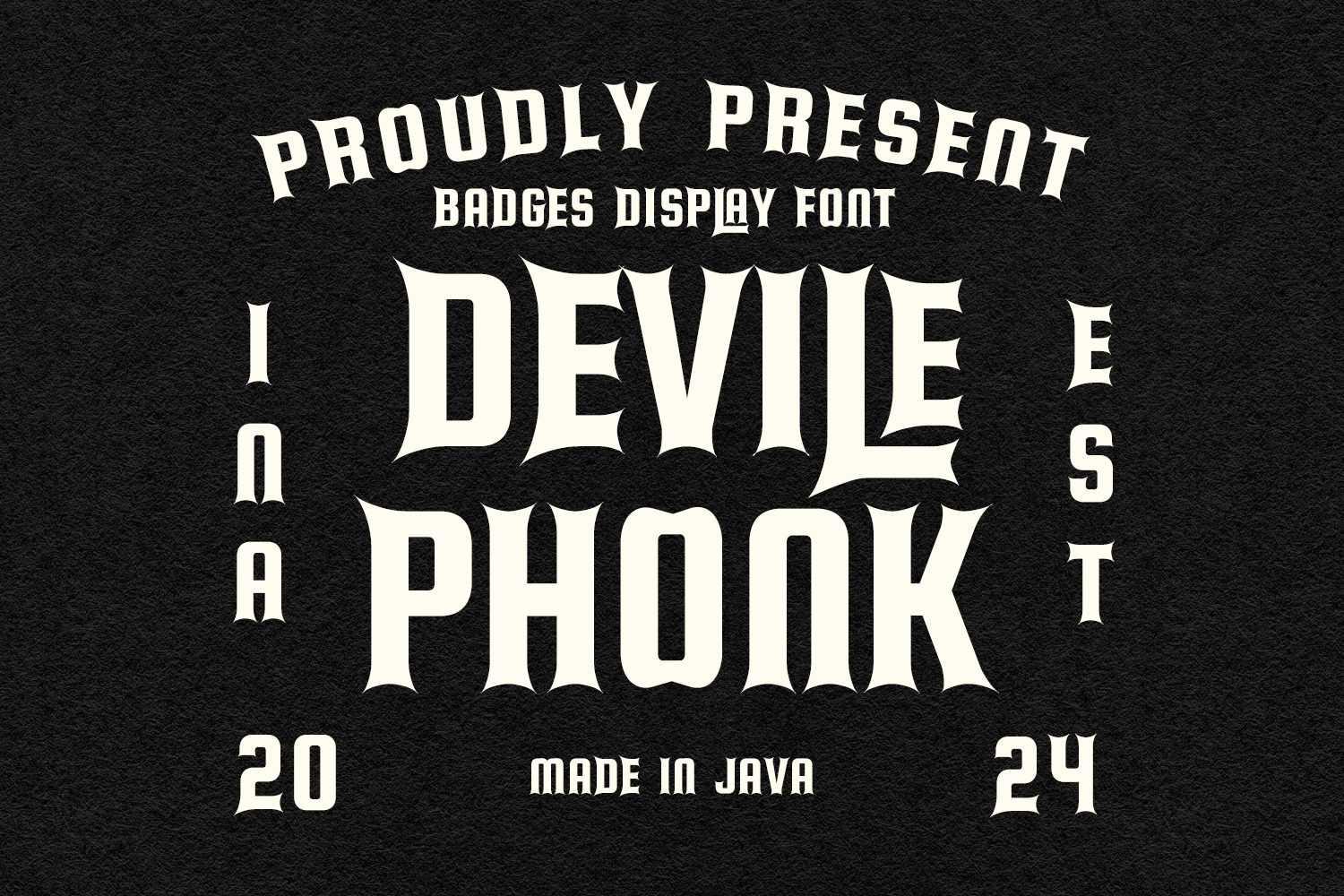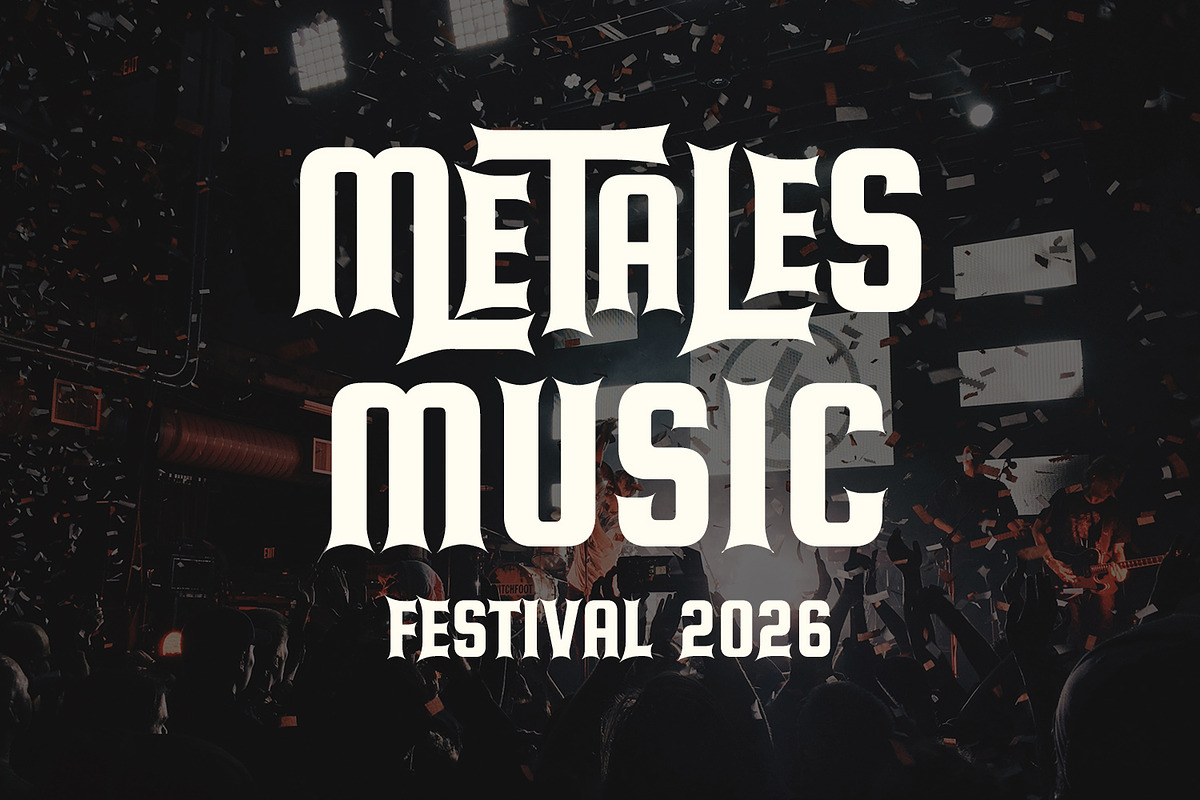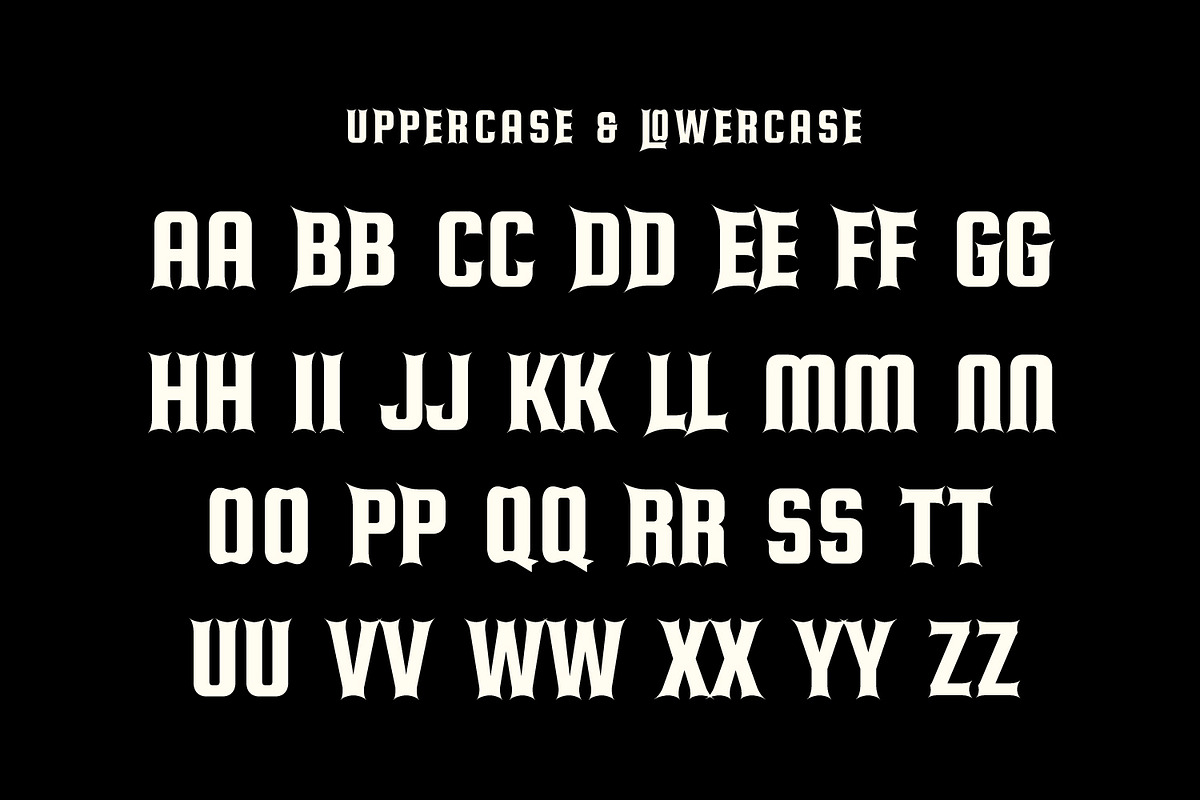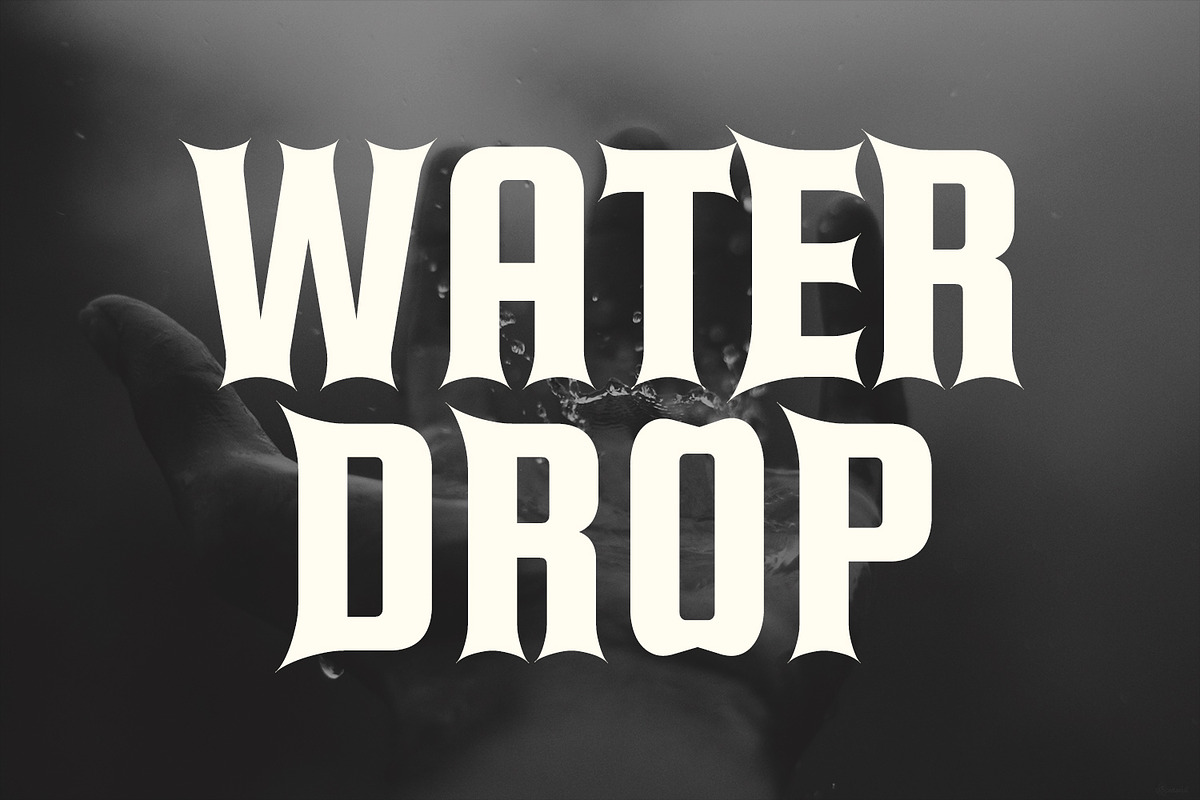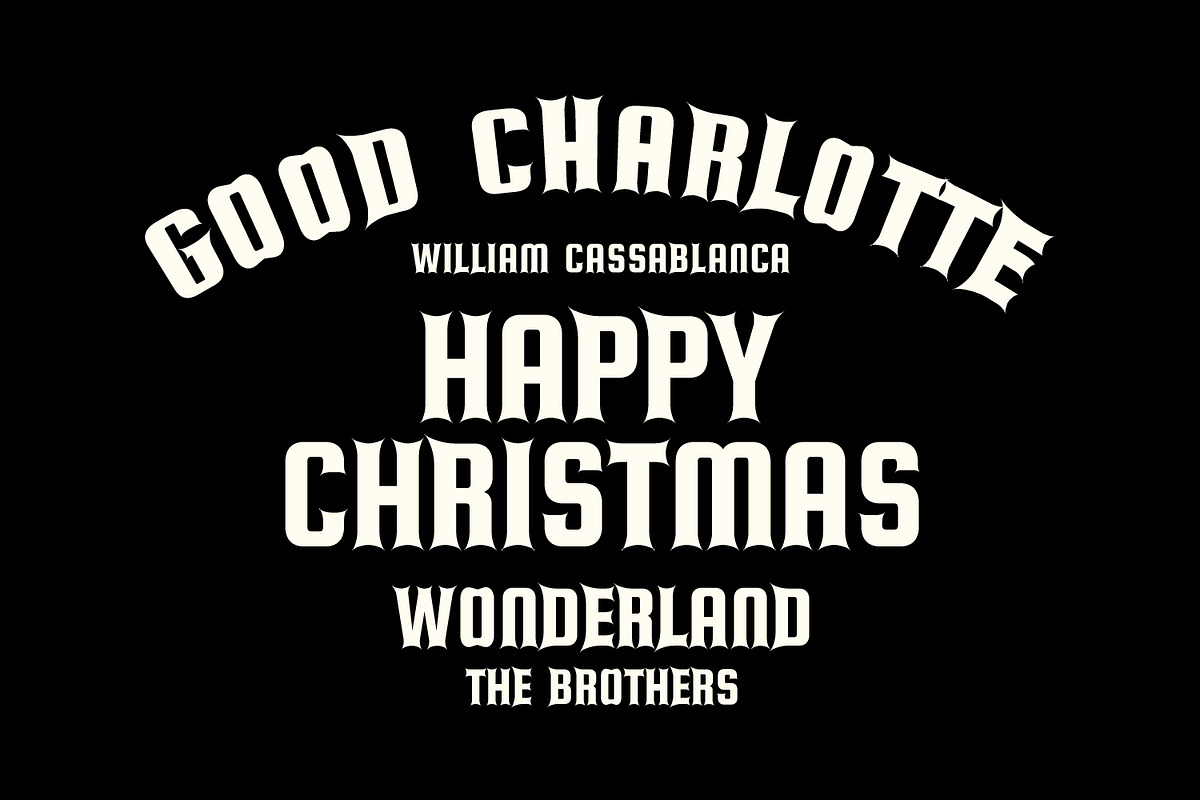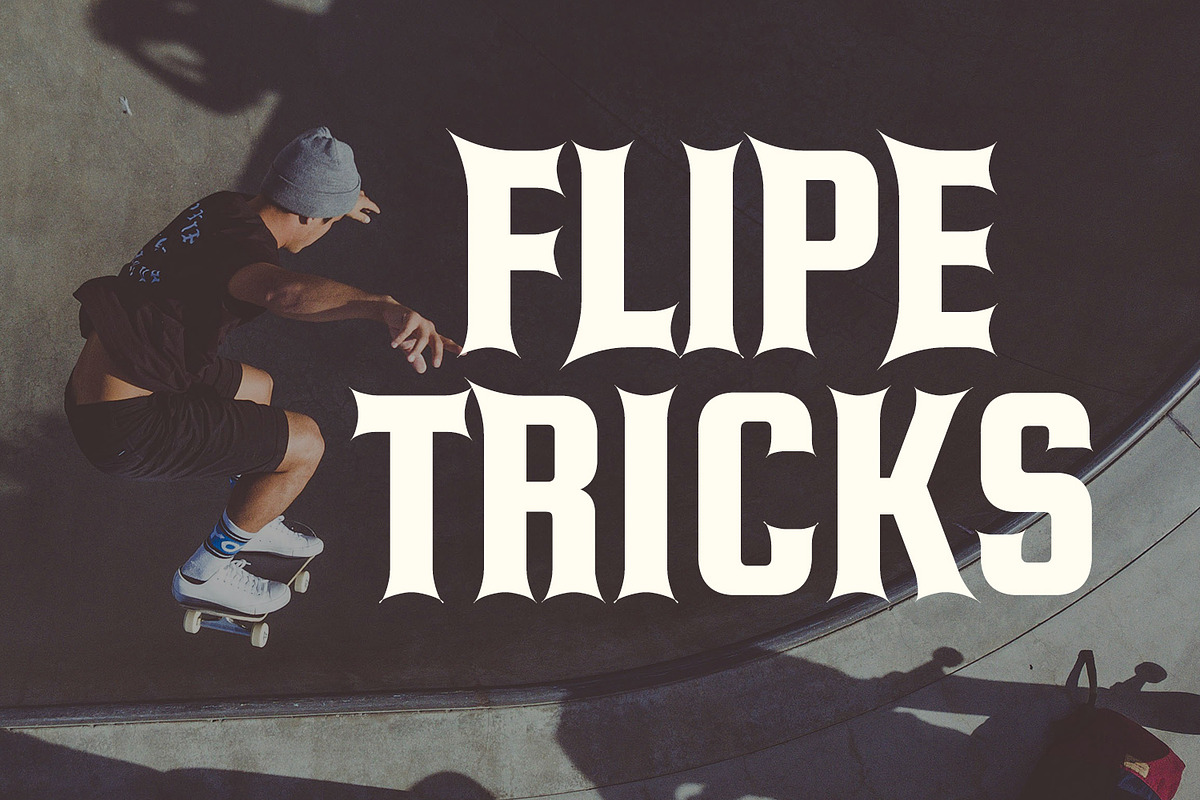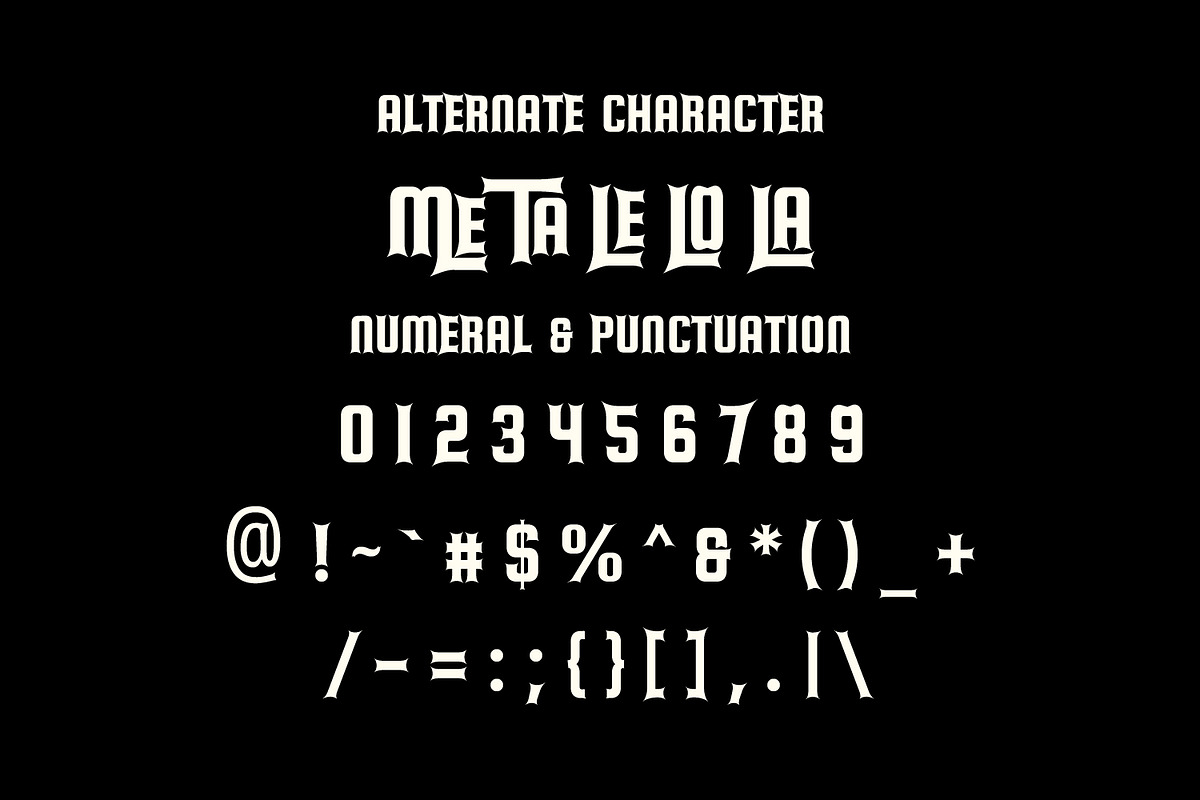
Devile Phonk Badges Display Font
Devile Phonk badges display font. With sharp bold stroke, fun character with a bit of ligatures. To give you an extra creative work. Devile Phonk display font support multilingual more than 100+ language. This font is good for logo design, Social media, Movie Titles, Books Titles, a short text even a long text letter and good for your secondary text font with script or serif. Make a stunning work with Devile Phonk display font.